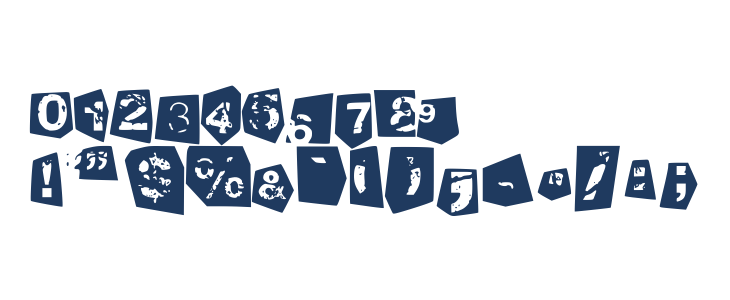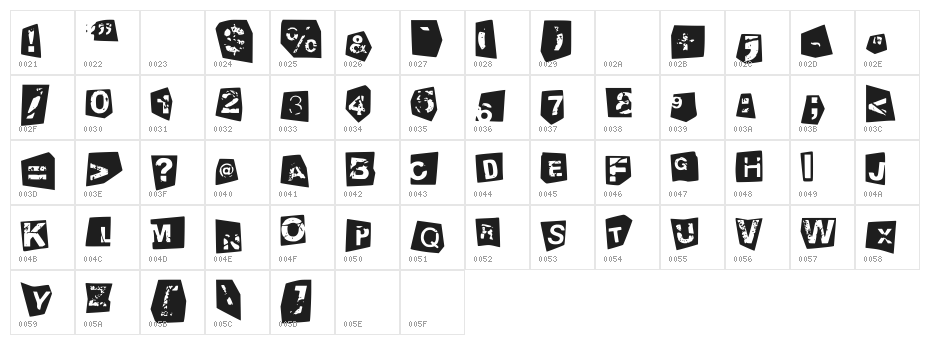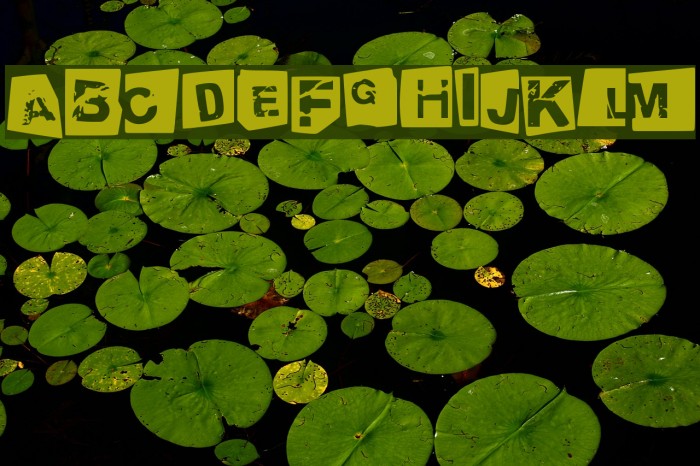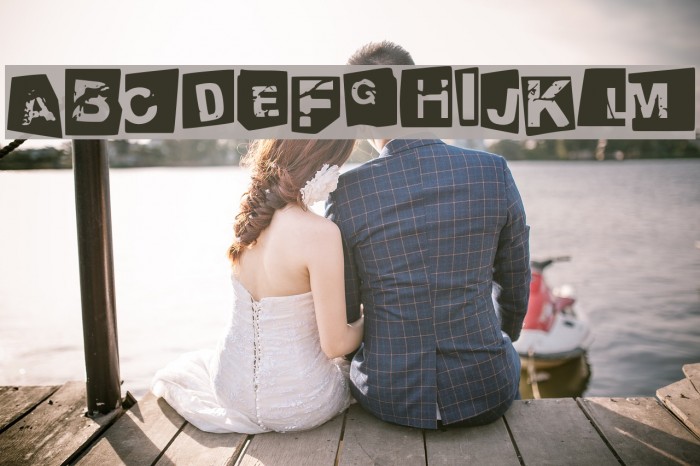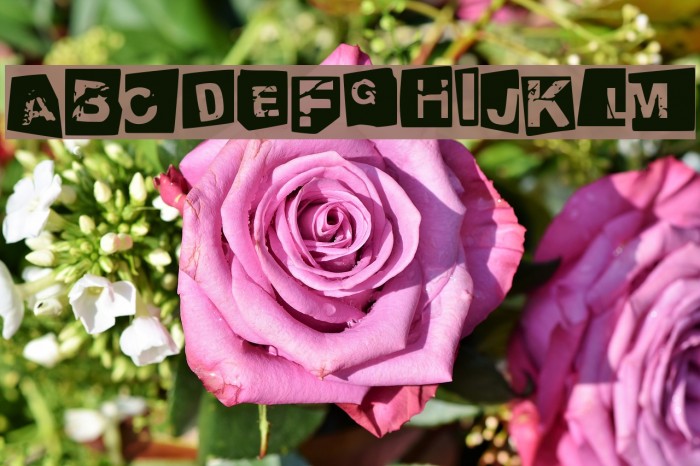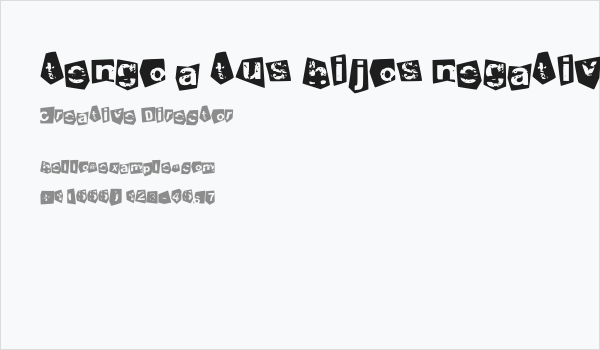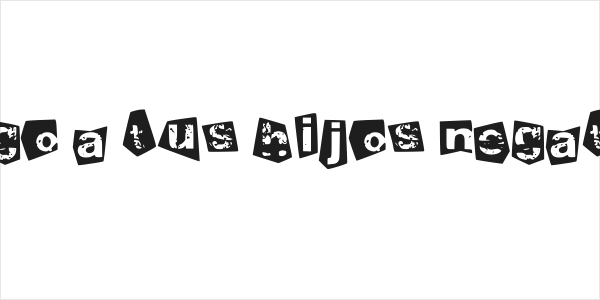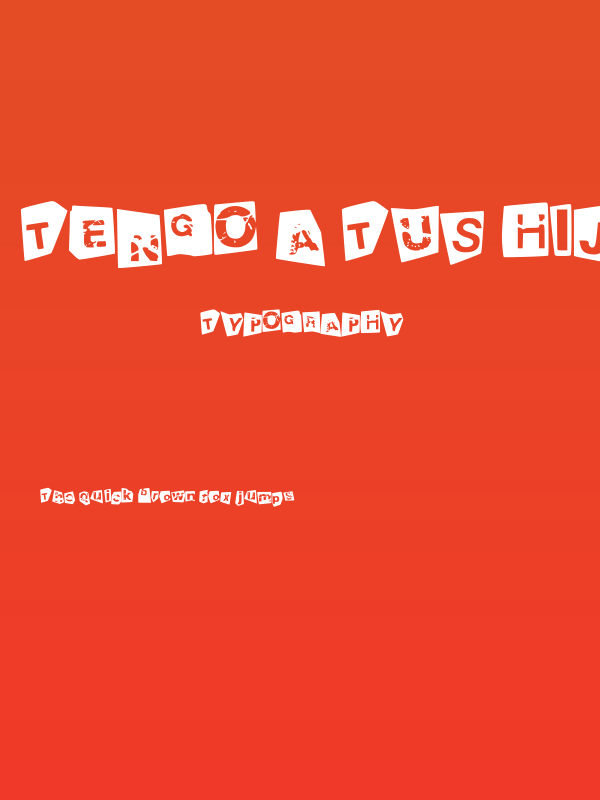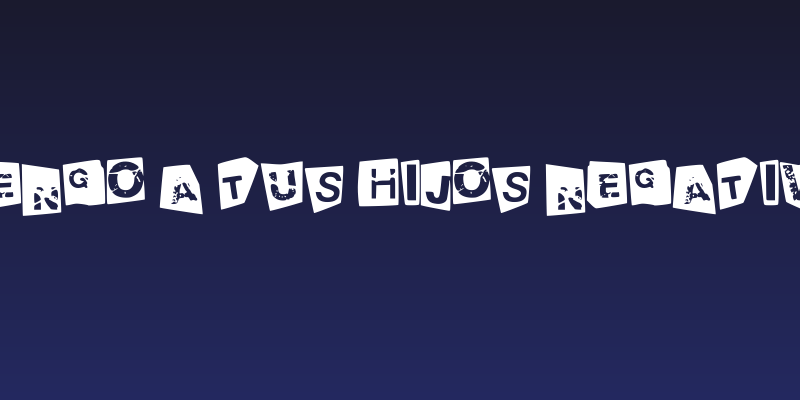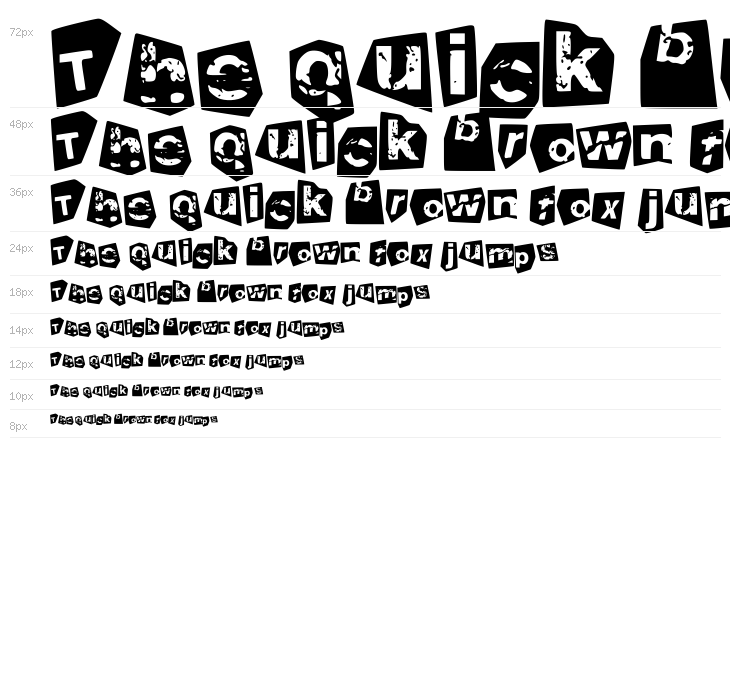
tengo a tus hijos negativo Font
This font presents an eclectic and edgy style, reminiscent of ransom notes with its cut-out letter appearance. Each character is uniquely shaped, with a rough, distressed texture that adds a gritty, rebellious feel. The letters are set against irregular black backgrounds, enhancing the chaotic and unpredictable aesthetic. The uppercase and lowercase letters, along with numbers and special characters, maintain this disordered style, making it ideal for projects that require a bold, unconventional look. The font's design is highly decorative, capturing attention with its distinct and fragmented appearance.
| Proposed Projects | Ideal for horror movie posters, edgy album covers, rebellious fashion branding, or any project needing a striking, unconventional typeface. |